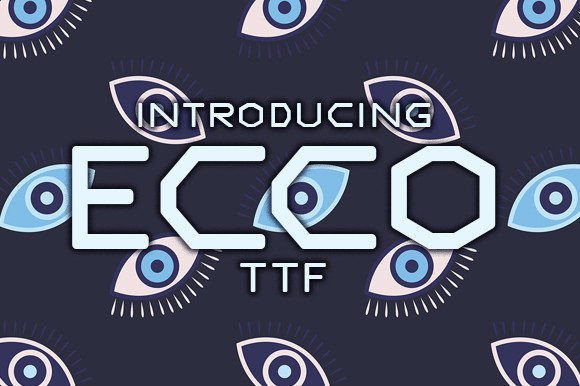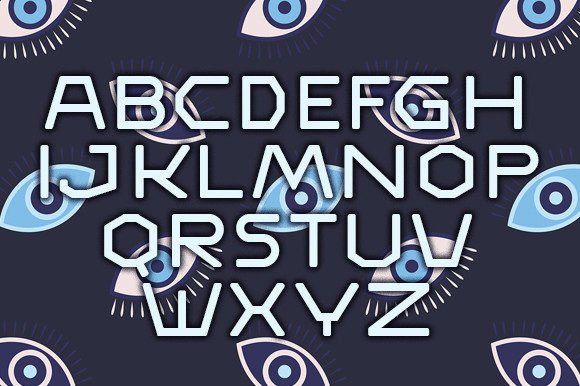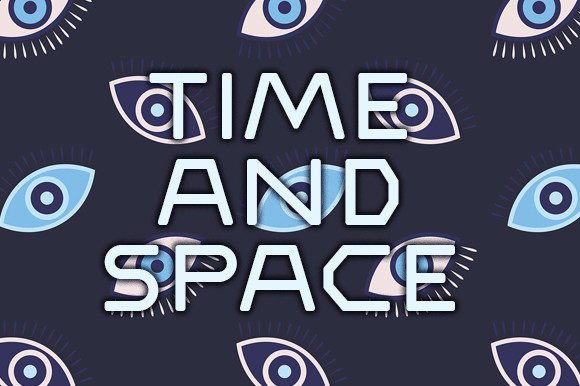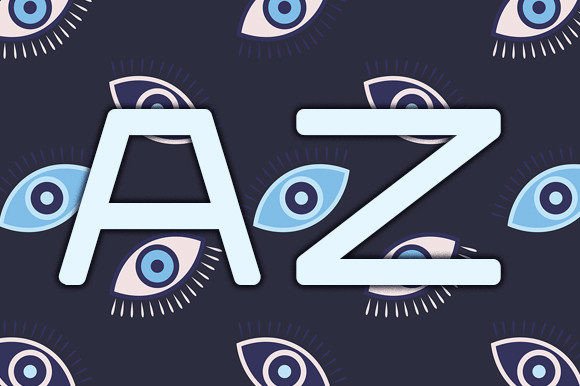
The Perfect Blend of Futurism and Style: Unveiling the Ecco Font
Have you ever found yourself stuck in a creative rut, staring blankly at a blank page, desperate for that one element to bring your design to life? We’ve all been there. But what if I told you that there’s a font out there that can transport you to a world of futuristic possibilities, elevating your design to new heights?
Enter the Ecco Font, a stunning sci-fi font that’s perfect for adding a touch of otherworldliness to your next project. Whether you’re designing a flyer, poster, or print, Ecco Font is the perfect addition to make your design stand out from the crowd. With its sleek, modern lines and futuristic feel, this font is a valuable asset for any designer looking to add a touch of innovation to their work.
Ecco Font Key Features
- Font Family: Ecco Font is a sans-serif font family with 12 styles, including 6 weights and 6 matching italics.
- Character Set: The font family supports a wide range of languages, including Latin, Cyrillic, Greek, and many others.
- Resolution: Designed for high-resolution displays, Ecco Font is suitable for use in digital media, including websites, mobile apps, and print materials.
- Unique Characteristics: Ecco Font features a modern, clean design with rounded edges, making it an excellent choice for user interfaces, digital signage, and other applications where readability is crucial.
Ecco Font Review
I recently had the chance to work with Ecco Font, and I must say it’s a unique and intriguing typeface. Here are my honest thoughts.
- Ecco Font’s dynamic, fluid feel is perfect for creating a sense of movement and energy in designs.
- The font’s open, airy feel makes it ideal for use in digital interfaces and websites.
- The font’s versatility makes it suitable for a wide range of applications, from titles and headings to body text.
- The font’s distinctive feel may not be suitable for all types of designs, particularly those that require a more traditional or formal look.
- The font’s high x-height may make it appear too condensed in some cases.
- The font may not be easily readable in small sizes or when used in environments with low contrast.
Overall, I think Ecco Font is a great choice for designers who want to add a touch of modernity and dynamism to their work. However, it’s essential to consider the font’s limitations and use it thoughtfully in your designs.
Getting the Most Out of Ecco Font
Use Ecco Font for:
1. Titles and headings.
2. Body text in creative projects.
3. Adding a modern and sleek touch to your designs.
1. Experiment with different font sizes and styles to create visual interest.
2. Pair Ecco Font with other fonts to create a unique and stylish look.
Alternatives to Ecco Font
Montserrat is a popular sans-serif font designed by Julieta Ulanovsky. It is ideal for use in digital media, such as websites and mobile apps, due to its clean and modern design. Montserrat is more geometric and condensed compared to Ecco Font, making it suitable for use in headlines and titles.
Inter is a modern sans-serif font designed by Office Type. It is designed to work well in digital environments and is highly legible even at small font sizes. Inter is more rounded and humanistic compared to Ecco Font, making it suitable for use in body text and paragraphs.
Lato is a sans-serif font designed by Łukasz Dziedzic. It is highly customizable and can be used in a variety of contexts, from digital media to print materials. Lato is more elegant and refined compared to Ecco Font, making it suitable for use in branding and corporate materials.
Open Sans is a popular sans-serif font designed by Steve Matteson. It is highly legible and works well in digital environments, making it suitable for use in websites, mobile apps, and other digital media. Open Sans is more rounded and friendly compared to Ecco Font, making it suitable for use in body text and paragraphs.
What is the recommended font size and line height for Ecco Font?
The recommended font size for Ecco Font is between 12pt and 24pt, with a line height of 1.2 to 1.5 times the font size. This will ensure optimal readability and legibility of the font.
Does Ecco Font support multilingual characters?
Yes, Ecco Font supports a wide range of languages, including Latin, Cyrillic, Greek, and many others. The font includes over 1,000 glyphs and supports Unicode characters up to U+10FFFF.